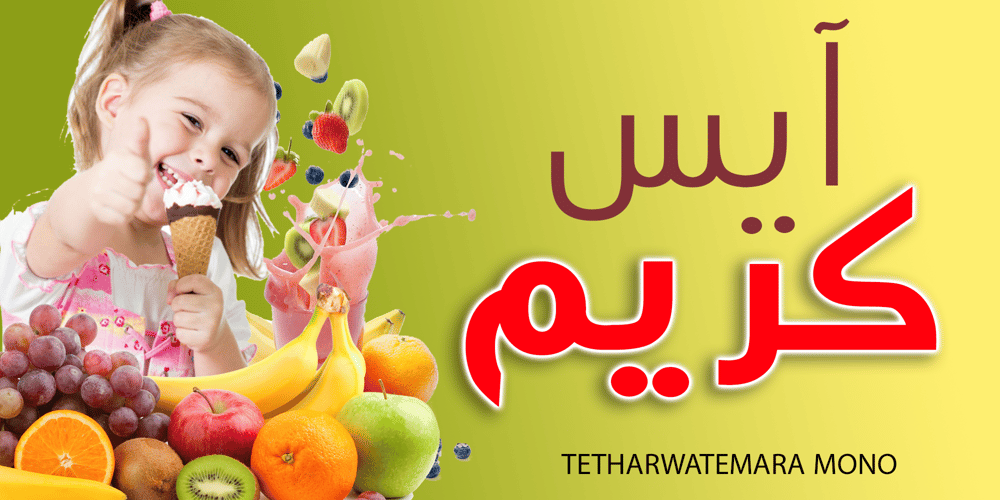
TE Mono Font Family was designed by Tharwat Mohamed Emara and published by Tharwat Emara. TE Mono contains 6 styles and family package options. Mono is one of the remarkable creations of the renowned Egyptian designer Tharwat Emara, who is considered a pioneer in the world of Arabic calligraphy and graphic design. The Mono font is characterized by its multi-weight design, allowing users flexibility in choosing the appropriate weight for each context or use.In this font, Tharwat Emara has successfully combined the traditional beauty of Arabic calligraphy with the contemporary simplicity required by modern applications. The result is a typographic font that combines elegance and clarity, suitable for a variety of projects ranging from web design to product printing.Letter Design and WeightsLight Weight: Features thin and elegant lines, making it ideal for long texts and comfortable reading.Regular Weight: Perfect for general uses such as website text and articles.Bold Weight: Adds a strong visual impact, ideal for main headlines and logos.UsesDigital Design: Mono can be used in website design and mobile applications due to its clarity and readability across screens.Printing: Suitable for printing on various materials such as books and magazines, adding a touch of elegance and modernity.Branding: Thanks to its versatile weights, it can be used in logo and branding designs that require distinctiveness and visual sustainability.Clarity and ReadabilityLetter Design: The font’s letters are designed to be clear and readable even at small sizes, making it suitable for long texts and written content.Multiple Weights: Different weights help enhance reading flow and provide a comfortable reading experience for users.Colors and ApplicationVersatility: Mono can be used with a variety of colors, whether dark or light, making it highly versatile in use.Various Applications: The font can be used in advertising design, presentations, educational texts, and other uses that require clarity and visual appeal.Overall, the Mono font represents a new step in Tharwat Emara’s journey towards developing Arabic typography and making it more compatible with modern requirements. With its diverse weights and distinctive design, this font is an excellent choice for anyone looking for a font that seamlessly blends tradition and modernity